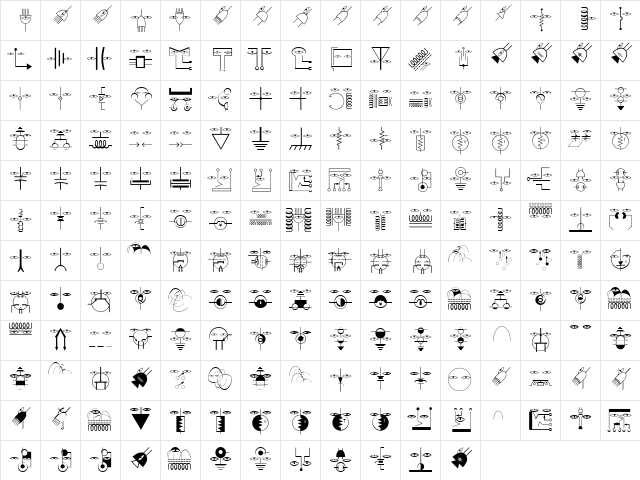
ElectronicFaces Regular
Design Context for ElectronicFaces Typeface
ElectronicFaces is a composed and adaptable typeface that performs quietly and consistently across a wide range of design contexts.